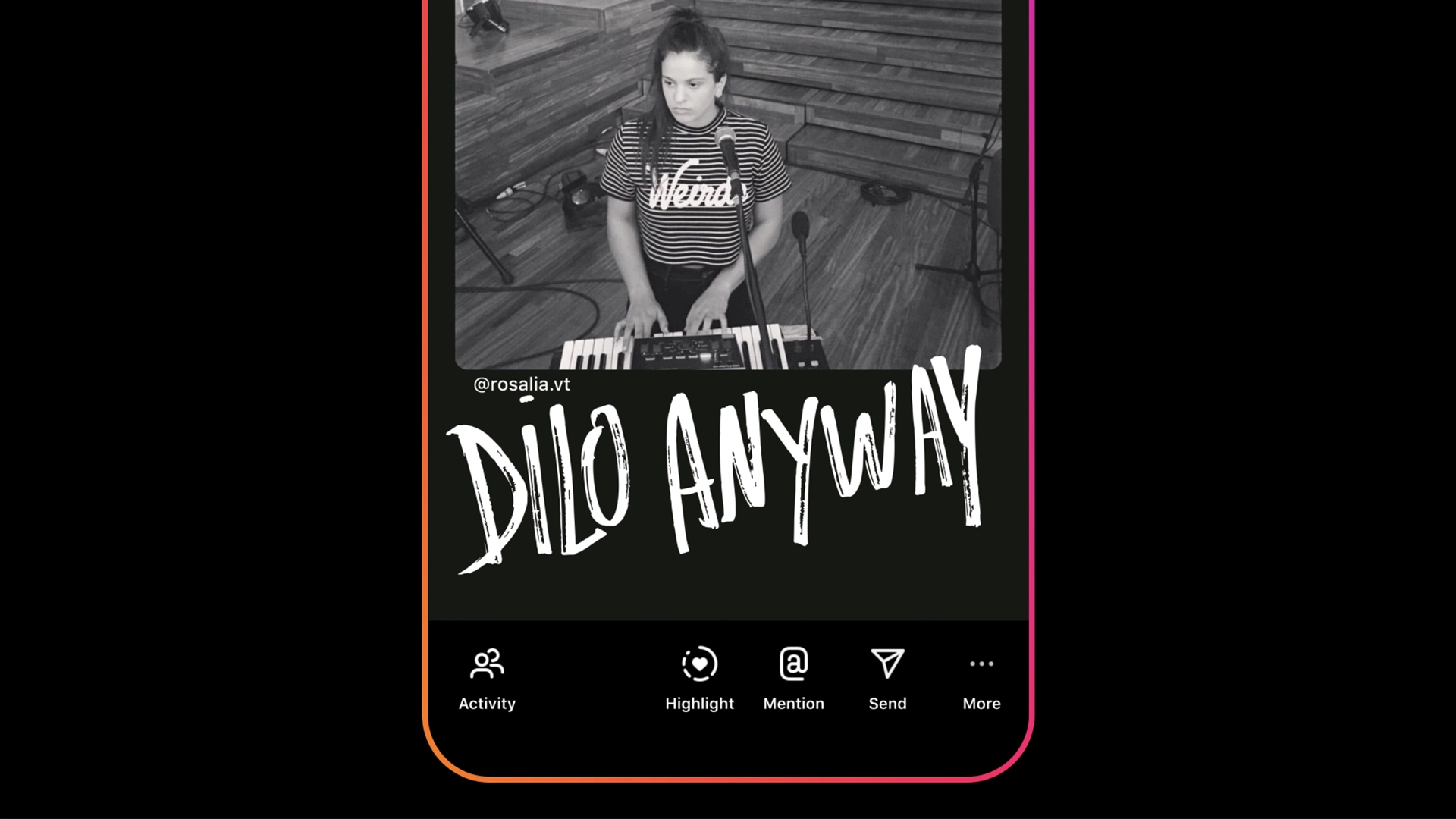
Why is everyone so angry about Instagram's new font?
It's everywhere, and apparently it's 'hideous'.
Look, we know more than most people that fonts are serious business. Sometimes emotional business. Good typography can spark joy, whereas an inappropriate font choice or dodgy kerning can absolutely ruin a day. So we're not particularly surprised to learn that Instagram's new font is drawing such a heated response.
Named Rosalía, after the Spanish pop star, the inky handwriting font is allegedly based on her handwriting, and is all over Instagram Stories right now. But while Meta claims the font is designed to inspire creativity and risk-taking, it seems plenty of users would happily never see it again.
"We know people value lightweight ways to be creative with features like Close Friends, Stories, Notes and more," Meta announced. "So we’re partnering with Rosalía on a new font in Stories and Reels, inspired by her handwriting, to make things more fun. We’re also introducing a way to share what you’re listening to on Spotify directly in Notes, to easily connect with friends through music."
The font has clearly proven popular – popular enough to warrant a backlash. "What is this hideous new font you're all using on Instagram?" One TikTokker asks in a video with over 2M views (above). Meanwhile, the campaign has spread to Instagram itself (below), with one user going so far as to describe its use as the "next pandemic".
So why's the font so offensive? Perhaps its the faux-messy style that manages to land somewhere between 'punk' and 'life, laugh, love'. Or the sheer illegibility of it – at a distance, this is by no means one of the best accessible fonts.
But ultimately, there probably isn't much science behind it. It's just a bit annoying. And the whole thing goes to show that, perhaps more than most areas of design, a font is capable of provoking a strong gut reaction – for better or worse.